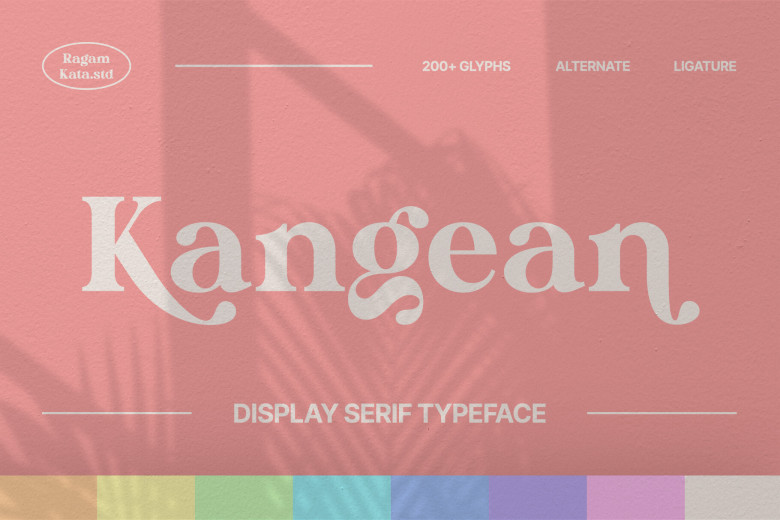
Kangean Font
Kangean font is a modern font designed for today. This classic serif display font adds a nostalgic yet modern flair, perfect for immersing designs into an original blend of classic and contemporary aesthetics.
Kangean offers wide ligatures and alternative styles which provide additional character and charm for your work. Get more creative by adding Kangean into your designs, use this elegant typeface solution as part of creative expression or just to impress someone special with Kangean!
Kangean Retro Serif Font